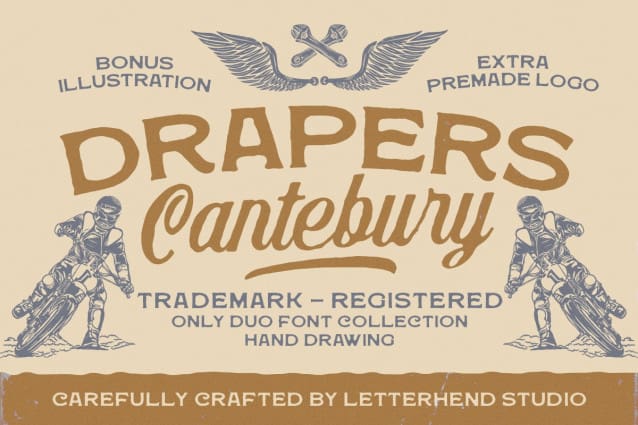
Drapers Cantebury Font Duo
Drapers Cantebury is a bold and vintage-inspired duo font collection, carefully crafted to bring a rugged yet elegant touch to your designs. Featuring a mix of strong serif and classic script, this hand-drawn typeface is perfect for branding, logos, apparel, posters, packaging, and more.